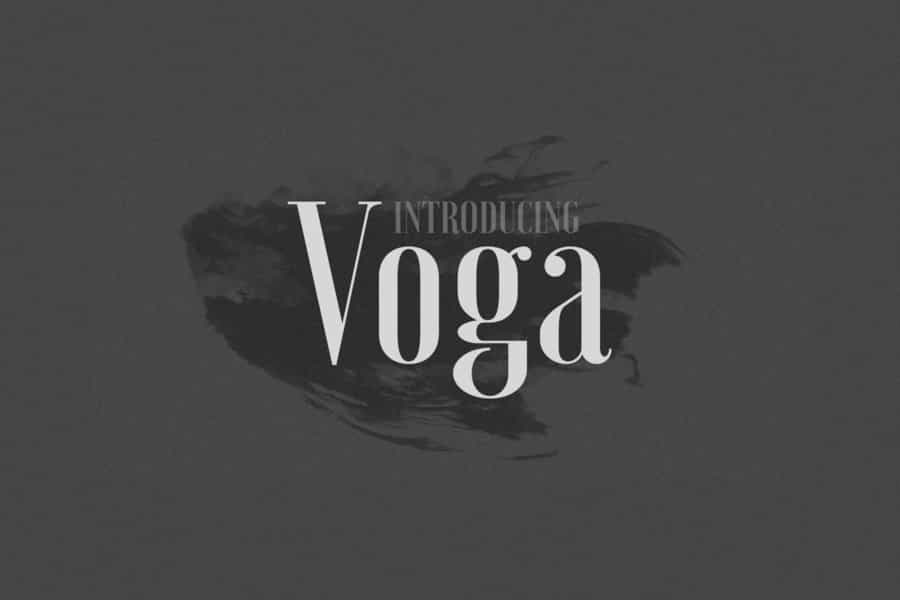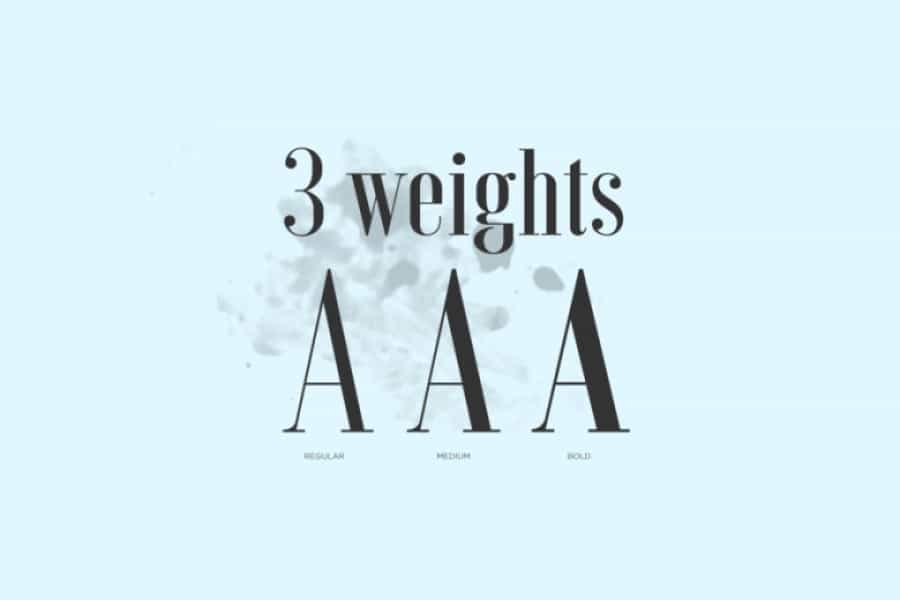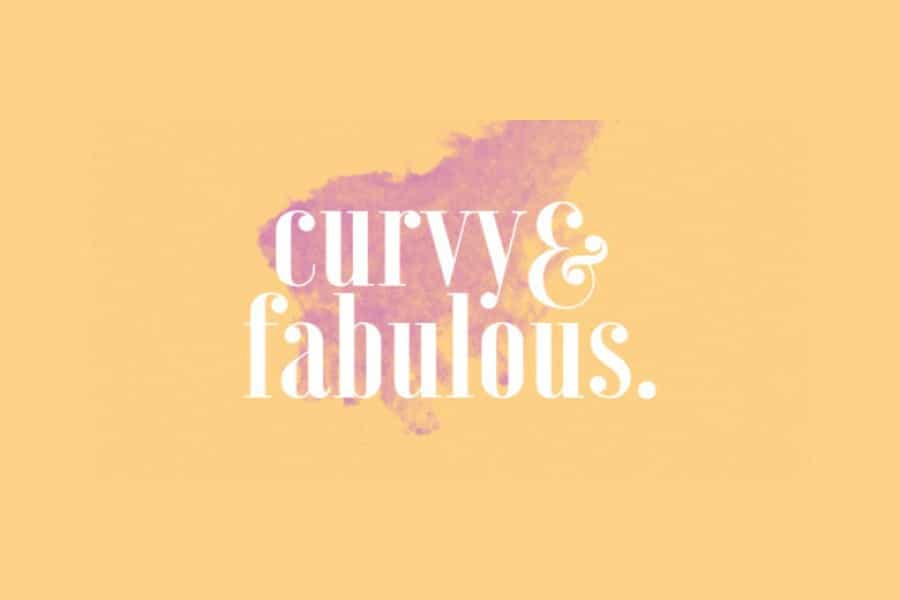
Discover Voga Font Family, part of the Serif Display collection—a versatile and unique font perfect for adding a personal touch to your projects. Download it for free and enjoy crafting designs with style, from invitations to social media posts. This font is available exclusively for personal use, giving you the freedom to create without limits. Unlock your creativity with Voga Font Family today!
Voga Font Family. A Free Trial Voga is a contemporary Didone font family with three weights: Medium with the family name, ‘bold’ in between, and the family name again at the end. Download it’s middle weight absolutely free of charge today! This typeface was created for style and, quite explicitly, for sex appeal, possessing brutality in the stroke, differences in letter width in each sub-group and generally curvy, straight, slender stems and hairline against ball terminal shapes.